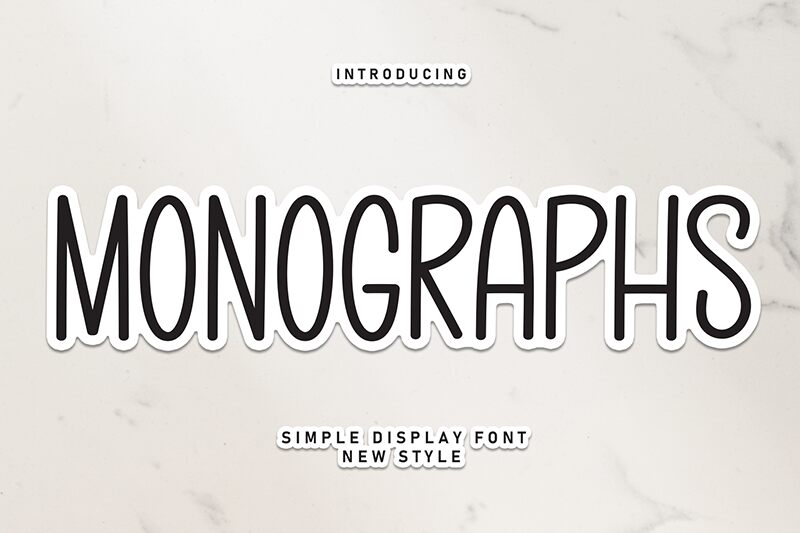
Monographs
Monographs font is a condensed free handwritten font by Scratchones with organic shapes, natural irregular strokes, and a casual feel. This modern aesthetic typeface gives the impression of being both graphic and hand-sketched. The characters appear informal which makes it an enjoyable font overall.